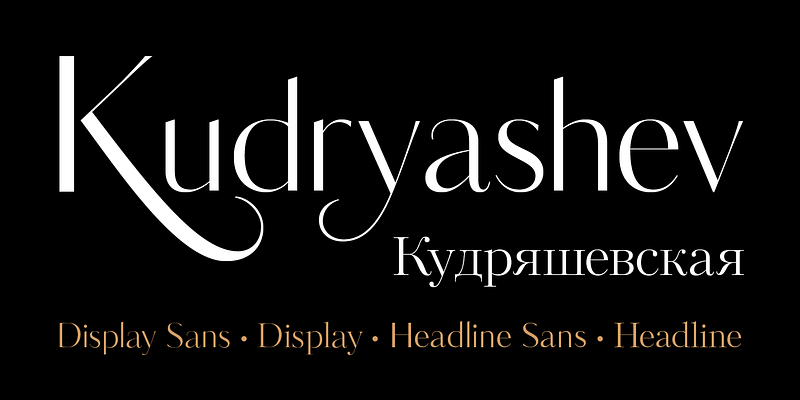
Kudryashev Display Font Free Download
Kudryashev Display Font Free Download is a bold and distinctive display typeface designed for maximum impact. With its unique, sharp-edged characters and modern aesthetic, this font is perfect for high-contrast headlines, posters, branding, and any design project that requires a strong visual presence.
Kudryashev Display Font Free Download features dramatic, geometric letterforms with sharp lines and a clean structure, making it ideal for use in large sizes for titles, logos, and advertising materials. Its bold design ensures your text stands out in any context, making it perfect for both digital and print applications.
Bold, strong, and visually striking—Kudryashev Display Font is an excellent choice for designs that demand attention and make a lasting impression.